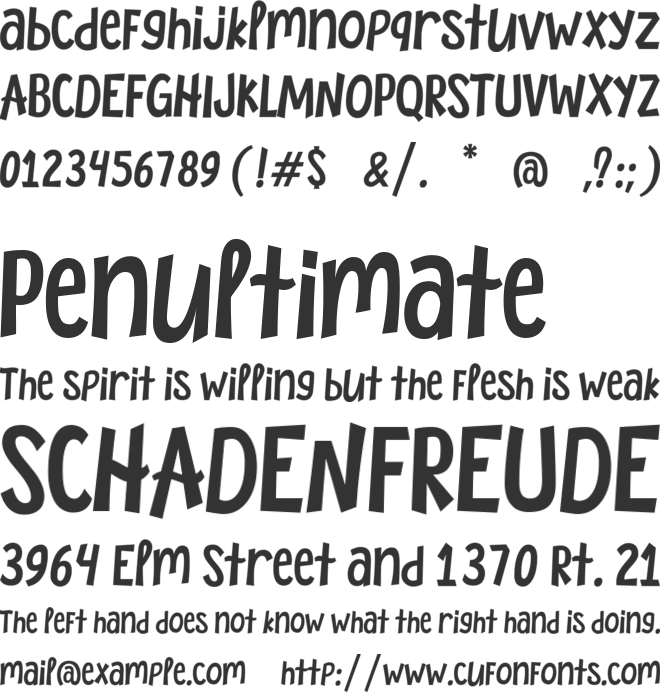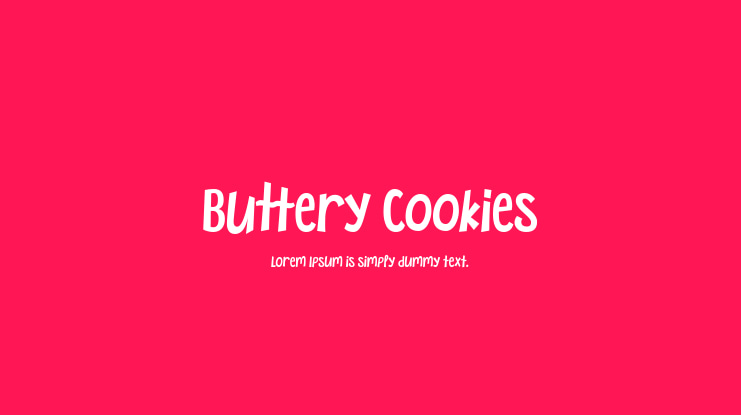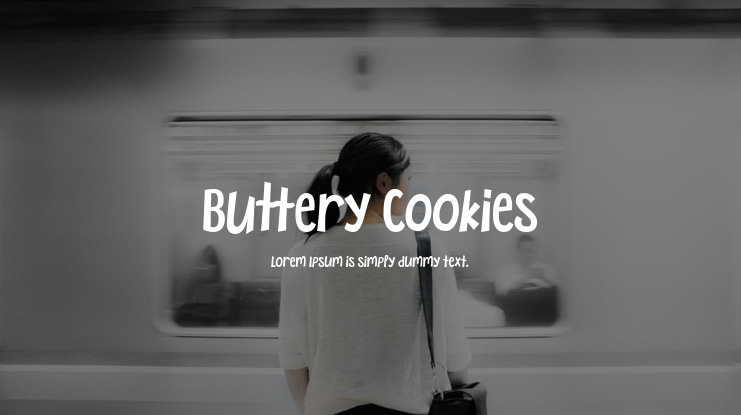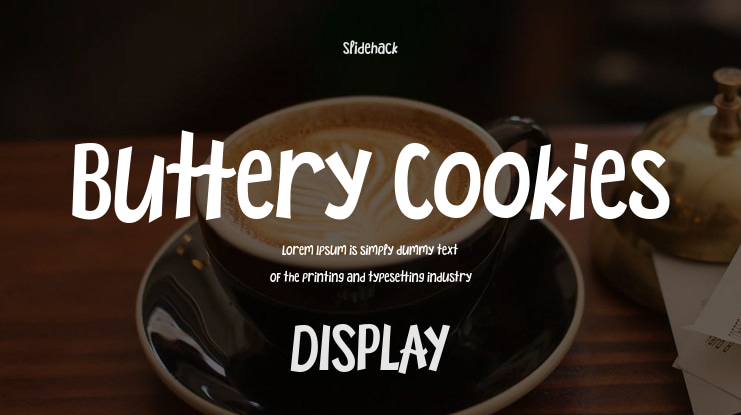
Buttery Cookies Font
Welcome to the enchanting world of "Buttery Cookies," where fonts come alive with a whimsical touch. This hand-drawn display font embraces a delightful throwback to retro charm, infused with a modern twist that makes it simply perfect for today's social media-driven landscape.
Whether your aim is to create attention-grabbing social media posts, captivating promotional materials, or enchanting content for kids and beyond, "Buttery Cookies" is the ultimate companion. Its carefully crafted letterforms and playful strokes add a delightful personality to your designs, ensuring they stand out in any crowd.
Imagine your text gracefully dancing across screens or printed on promotional materials, evoking smiles and joy. With "Buttery Cookies," your creativity knows no boundaries, leaving a lasting impression with every message you create.
Unlock a world of endless possibilities with this charming and versatile font, as delightful as a plate of freshly baked cookies. Experience the magic of "Buttery Cookies" today and watch your designs come to life with a sprinkle of fun and playfulness.
Buttery Cookies Display font By Slidehack